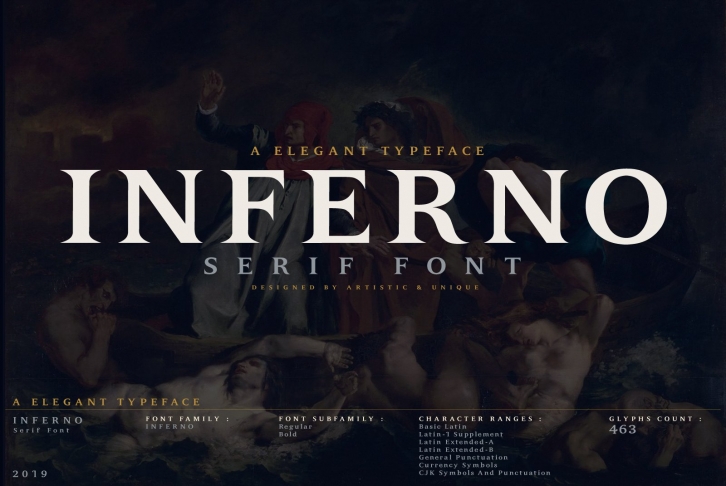
INFERNO Serif font
INTRODUCING - INFERNO Serif font
INFERNO has a strong classical effect and modern aesthetics. Inspired by the first printed texts of the Renaissance period, this writing style has contemporary features with its sharp serif. A contemporary look at high contrast fonts that have never been out of style, characterized by elegance, tradition and timelessness.
INFERNO is a compact typeface with strong serifs, symmetrical curves and a vertical axis. The design of its letters are simple, and it is ideal for combining different variables and typographic bodies, for digital and printed media. INFERNO is a compact typeface with sharp features and a sturdy character, designed for comfortable reading in small sizes.
With this font you can create your unique designs. Make a great combination on your printed documents, books, magazines, newspapers, branding, poster headline, movie title, store front, magazine headline, and much more.
With this font you can create your unique designs. Make a great combination on your label design, branding, poster headline, movie title, store front, magazine headline, etc.